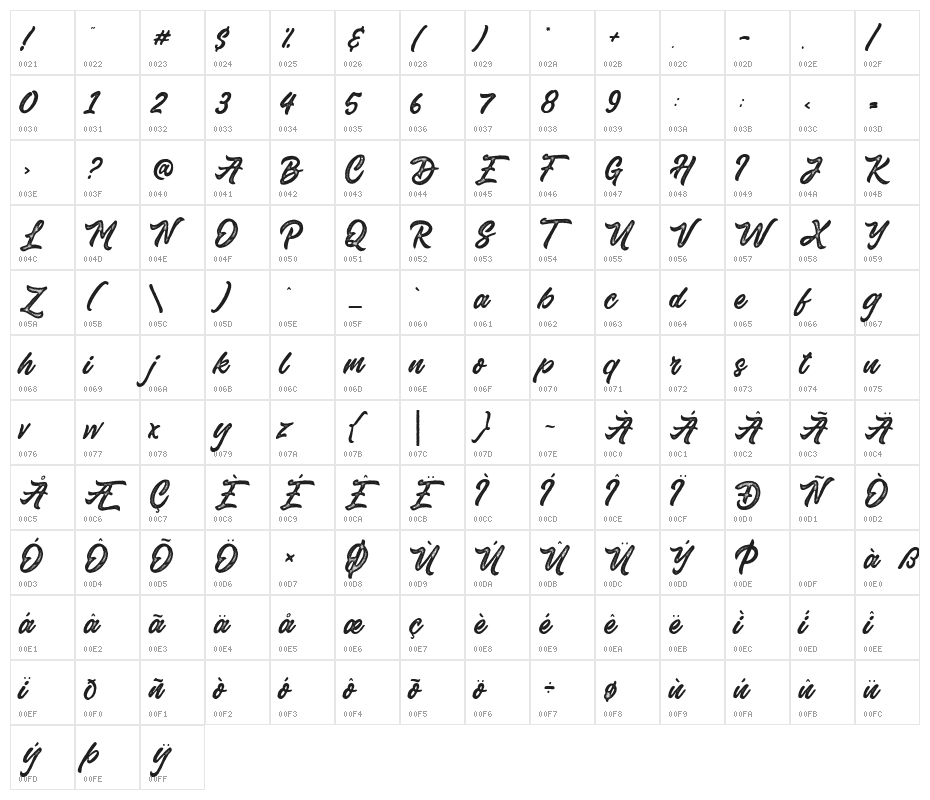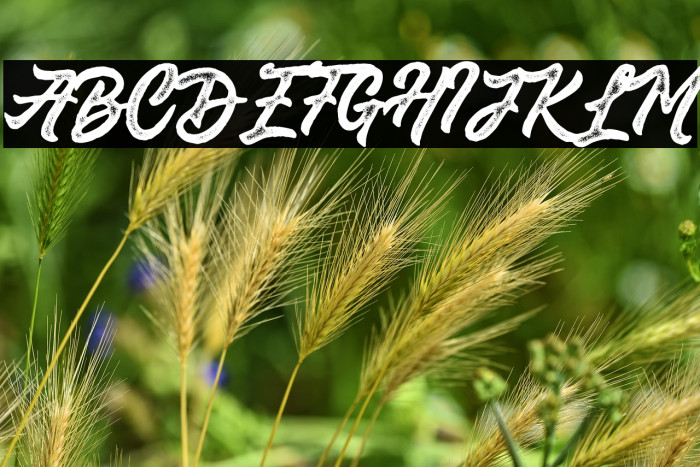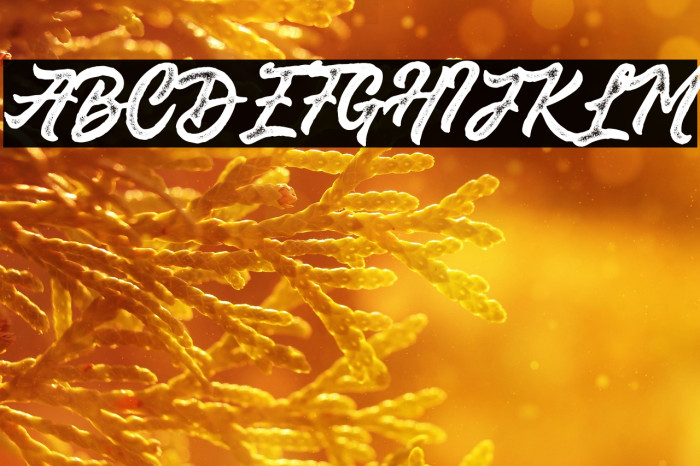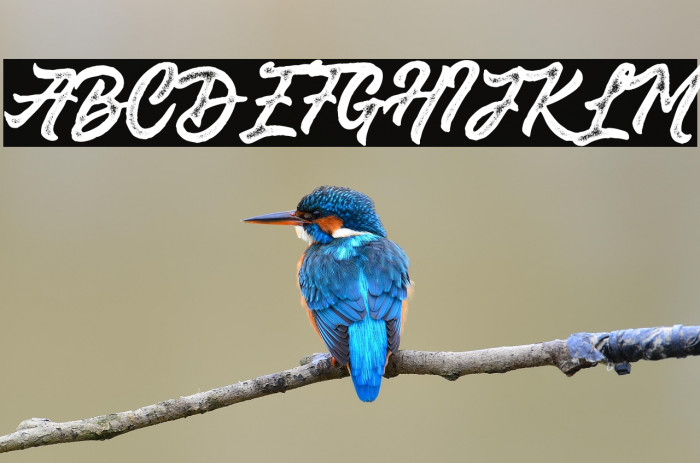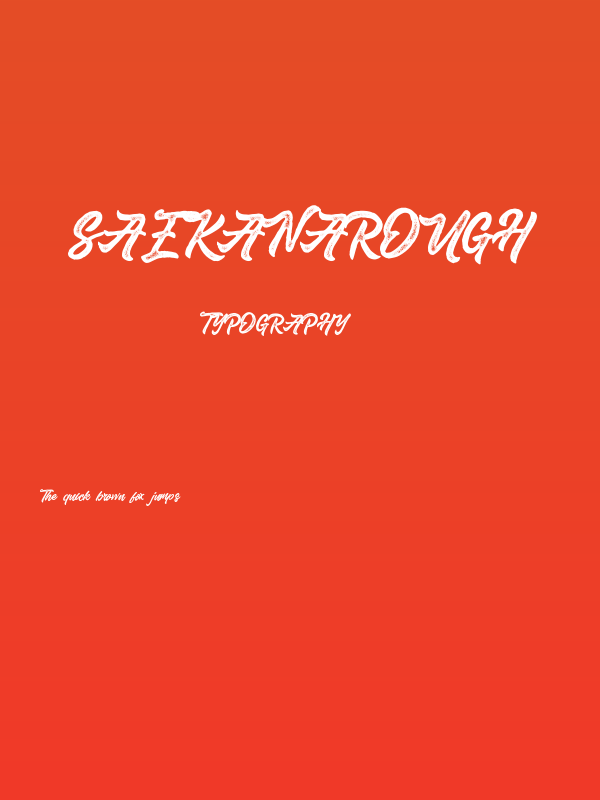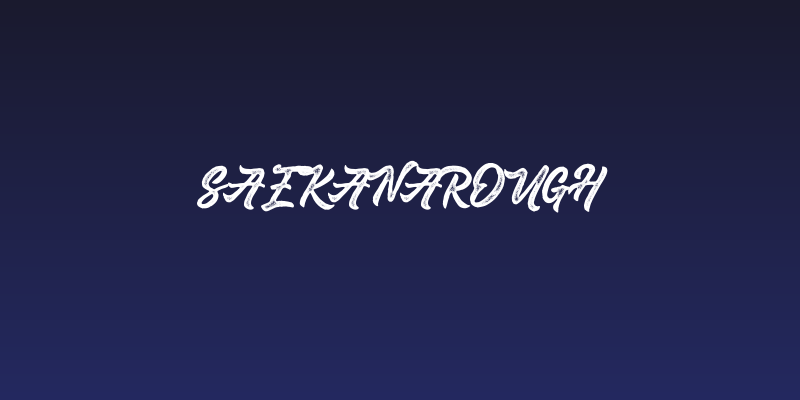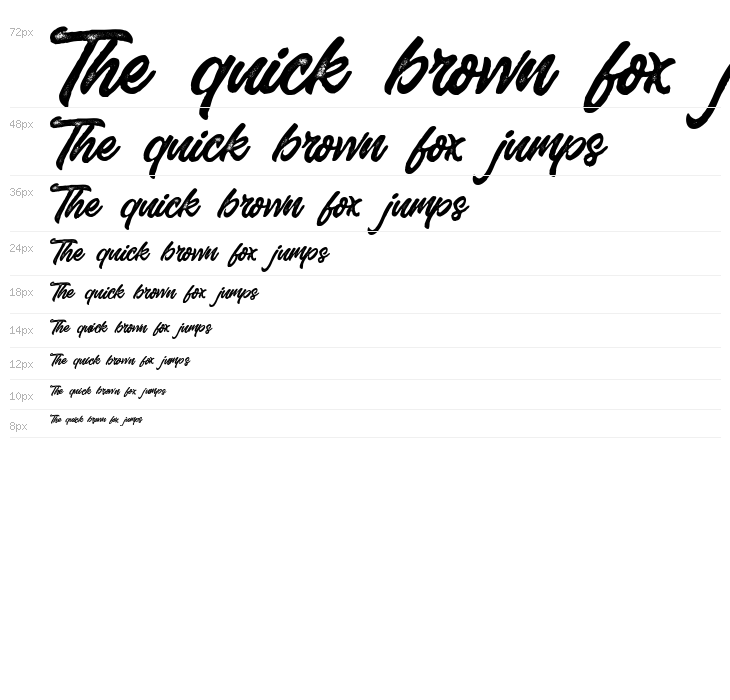
Saekanarough Font
Saekanarough Description
This font features a bold, textured script style that exudes a sense of rugged elegance. The letters are connected in a fluid, cursive manner, giving it a handwritten appearance. The texture within each character adds a distressed, vintage feel, making it stand out as a unique choice for creative projects. The uppercase letters maintain a consistent height, while the lowercase letters offer a smooth transition with their slightly elongated forms. Numbers and special characters are designed to match the overall aesthetic, ensuring a cohesive look across all text elements.
| Proposed Projects | Ideal for branding, packaging, posters, and invitations that require a personal, handcrafted touch. |